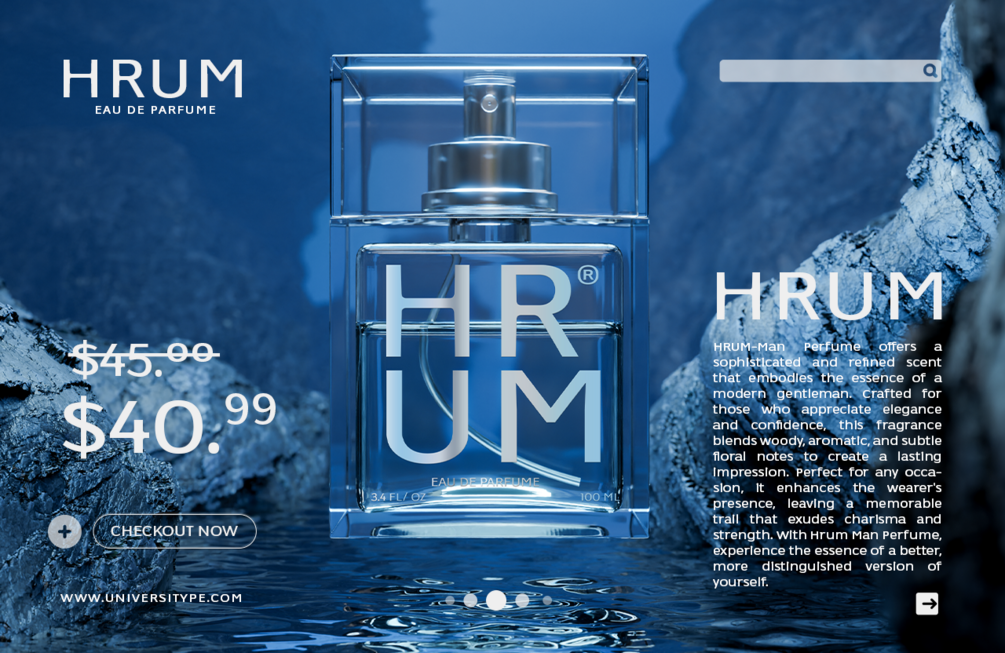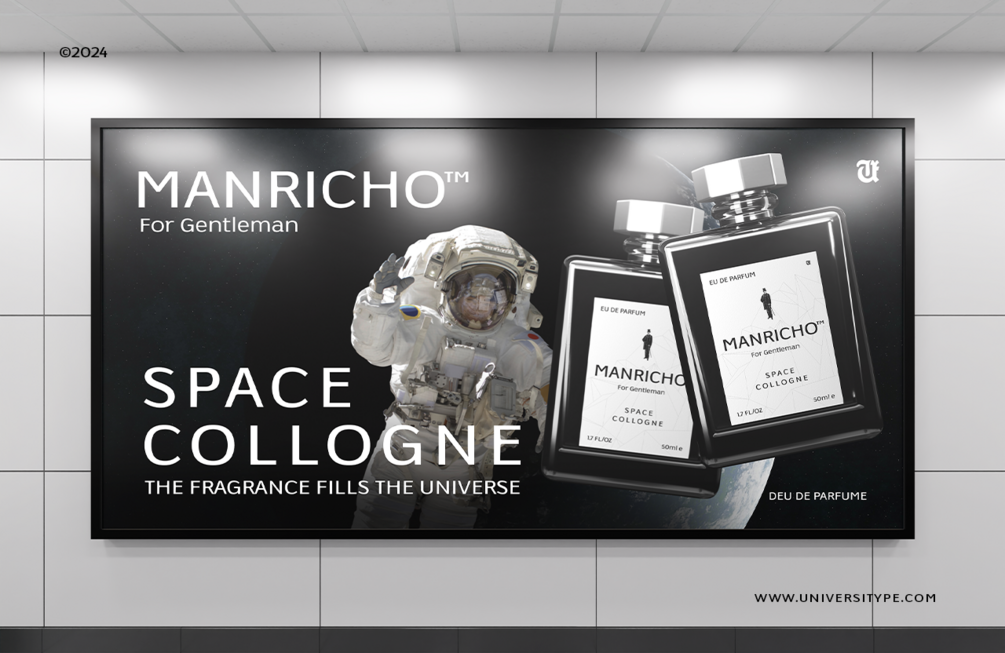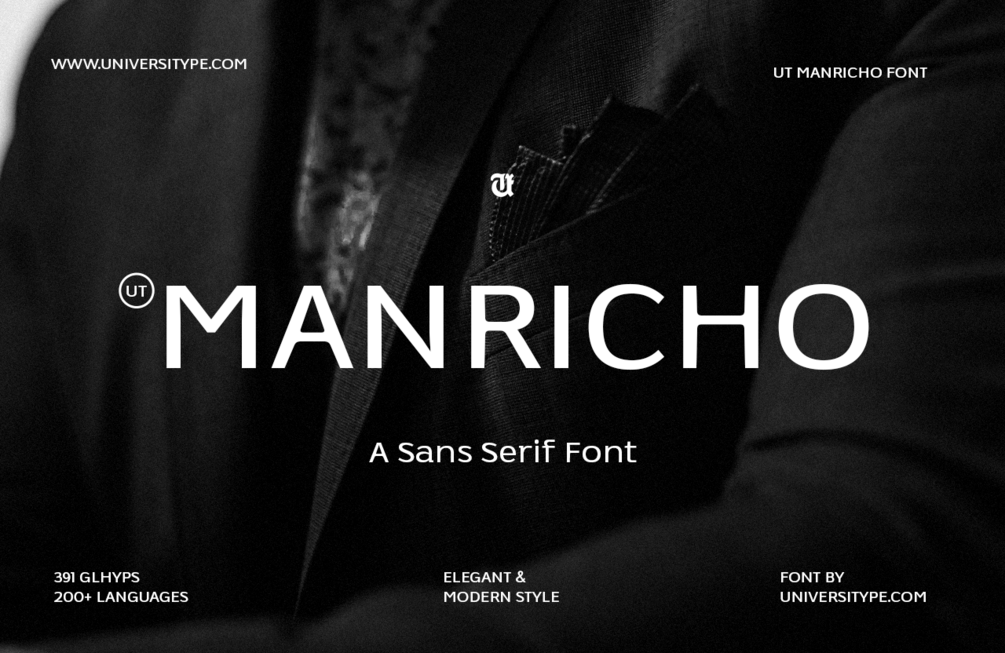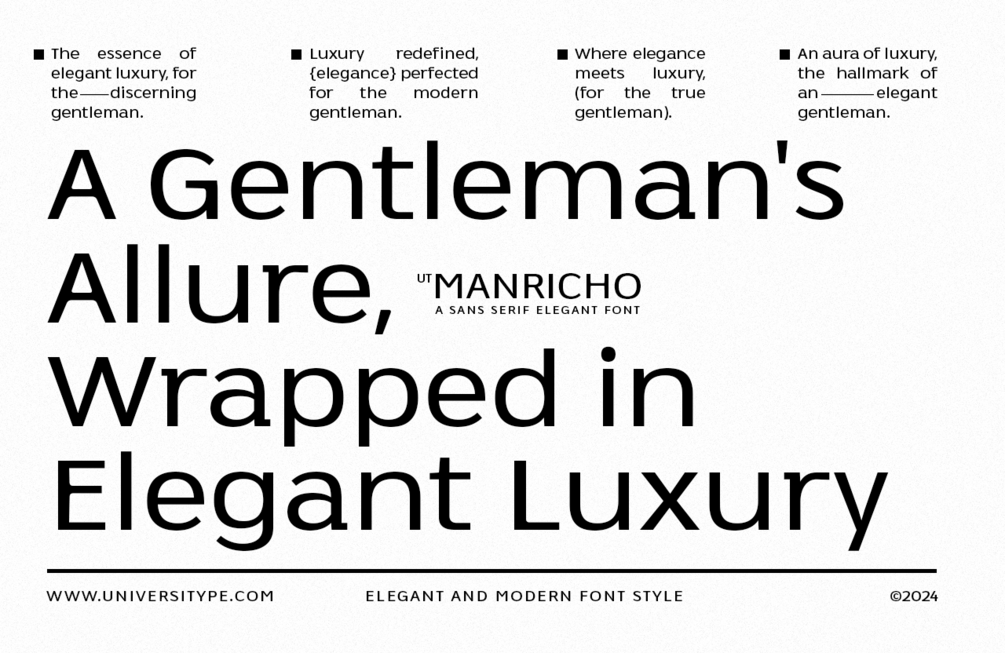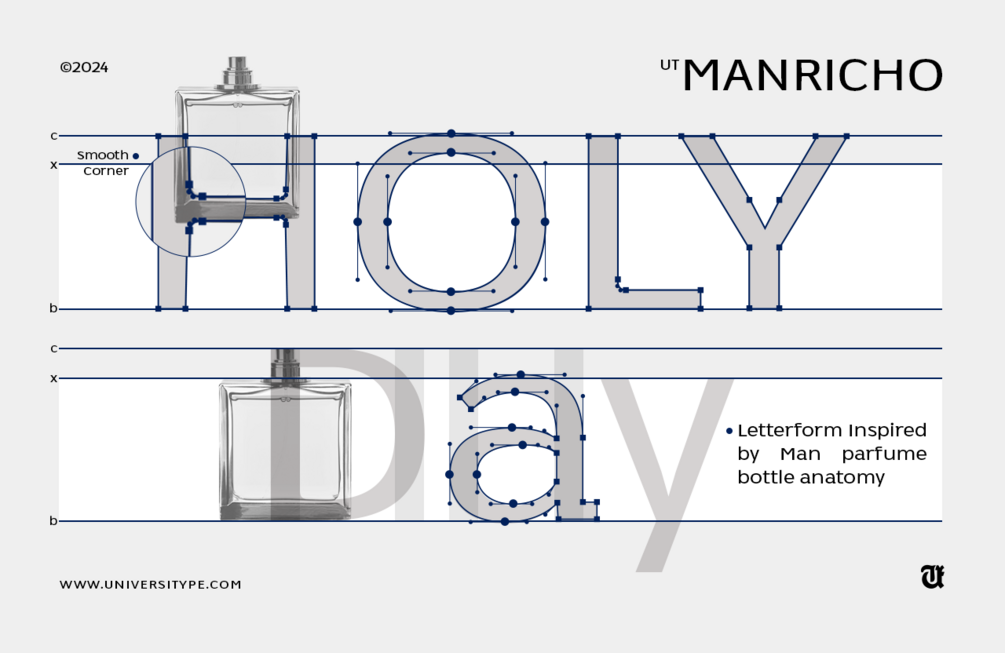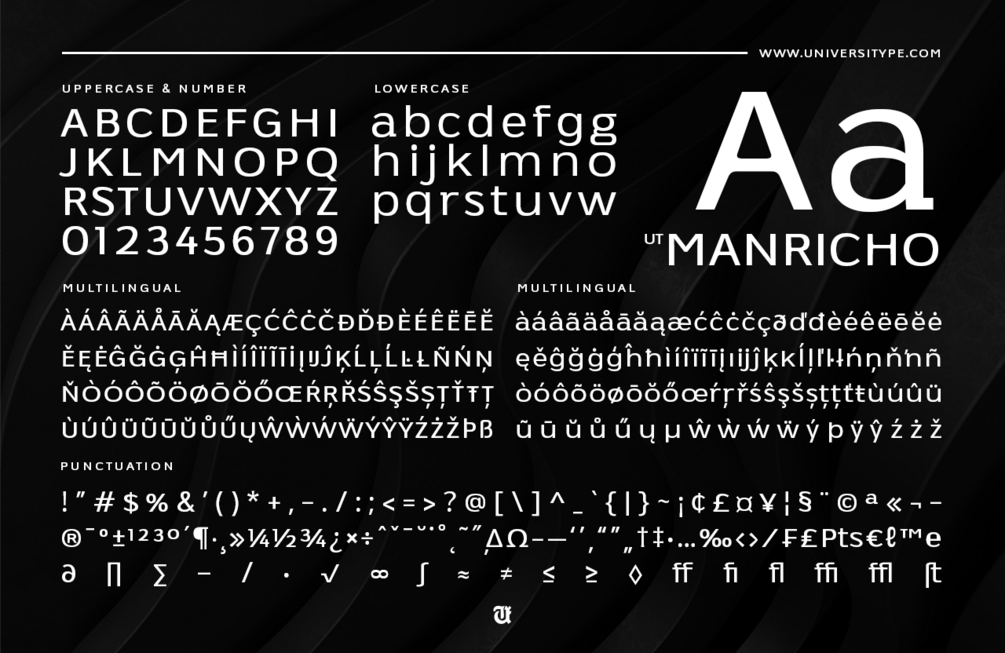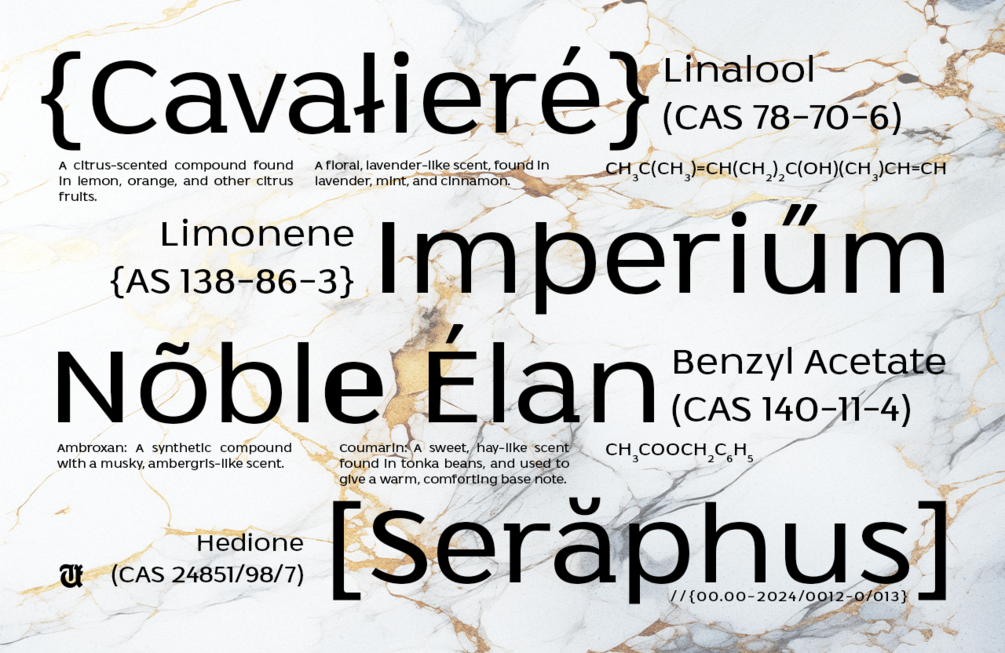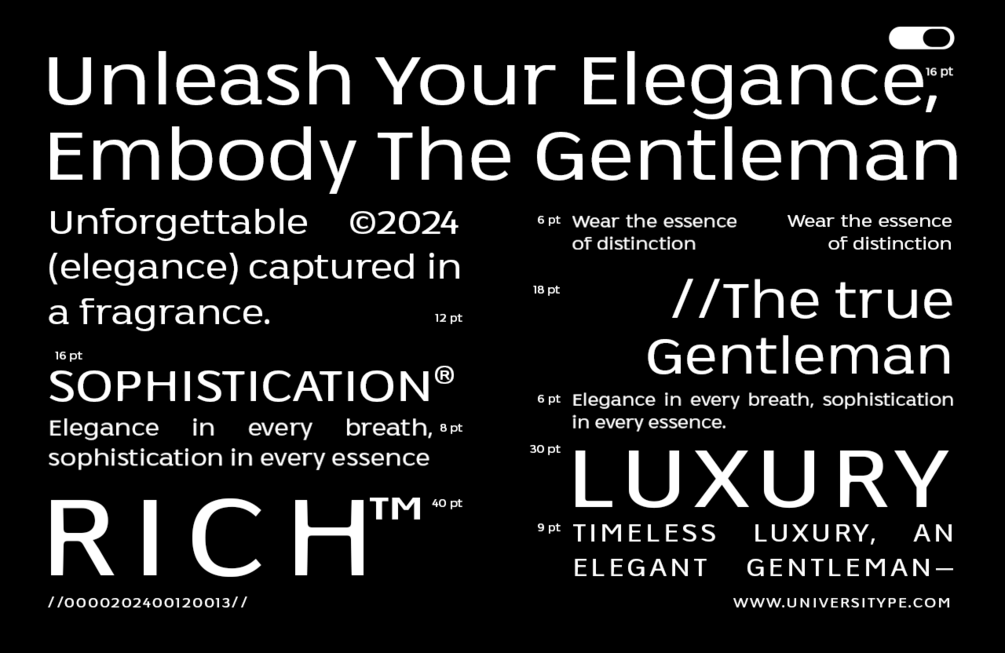
UT Manricho - A Modern Sans Serif
UT Manricho is a typeface crafted to embody sophistication, elegance, and modern refinement. Drawing inspiration from the sleek contours of luxury perfume bottles, its design merges timeless beauty with contemporary functionality. From its bold uppercase forms to its clean, readable lowercase letters, UT Manricho delivers versatility that suits a wide range of creative projects, whether you’re designing for print, digital, or branding purposes.
This typeface is ideal for those who appreciate thoughtful typography that enhances every design it touches. Its bold characters make a striking impression in headlines, while its elegant proportions bring clarity and professionalism to body text. Whether used for marketing materials, website elements, or logo designs, UT Manricho adapts effortlessly, ensuring your message stands out with style and precision.
Designed with creative flexibility in mind, UT Manricho includes alternates, stylistic sets, and ligatures that add an extra layer of uniqueness to your work. It’s available in widely compatible formats like OTF, TTF, and WOFF, making it accessible to both designers and developers across various platforms. This ensures your projects maintain their polished aesthetic, whether on a website, business card, or brochure.
In essence, UT Manricho is more than a font—it’s a tool for creating a lasting impression. Its refined letterforms and modern sensibility provide an unparalleled balance of style and substance. For those looking to elevate their designs with a touch of luxury and professionalism, UT Manricho offers a perfect blend of artistry and practicality.